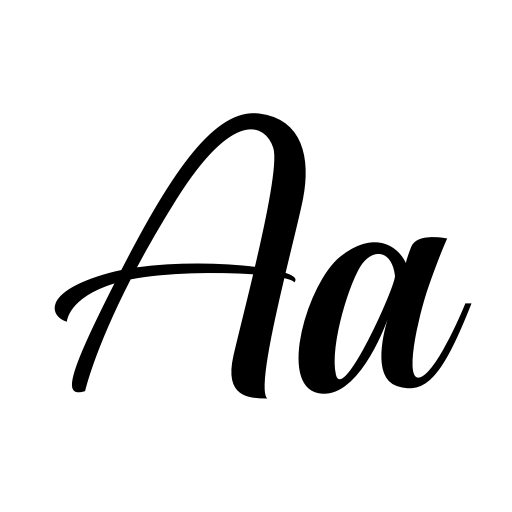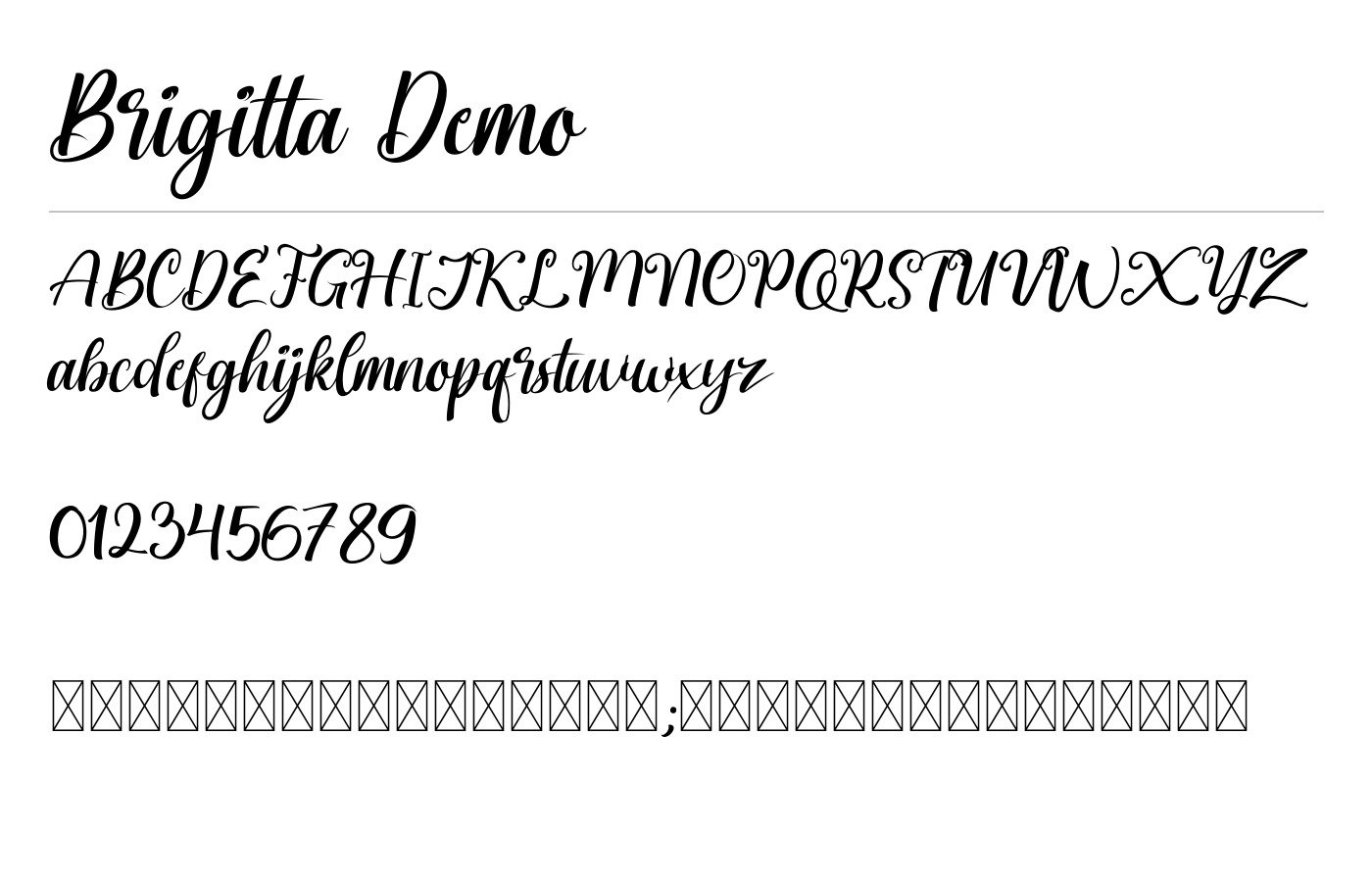
Brigitta Demo is an elegant script font that blends smooth, flowing letterforms with delicate flourishes, creating a sophisticated yet approachable style. Its moderate weight and natural, slightly condensed width make it ideal for stylish branding, invitations, and decorative text where a touch of refinement and personality is desired. This font shines in creative projects requiring a graceful, handwritten feel without sacrificing readability.
Brigitta Demo Font
About Brigitta Demo Font
| Font family | Brigitta Demo Font |
| Designer | Aditya Rezki |